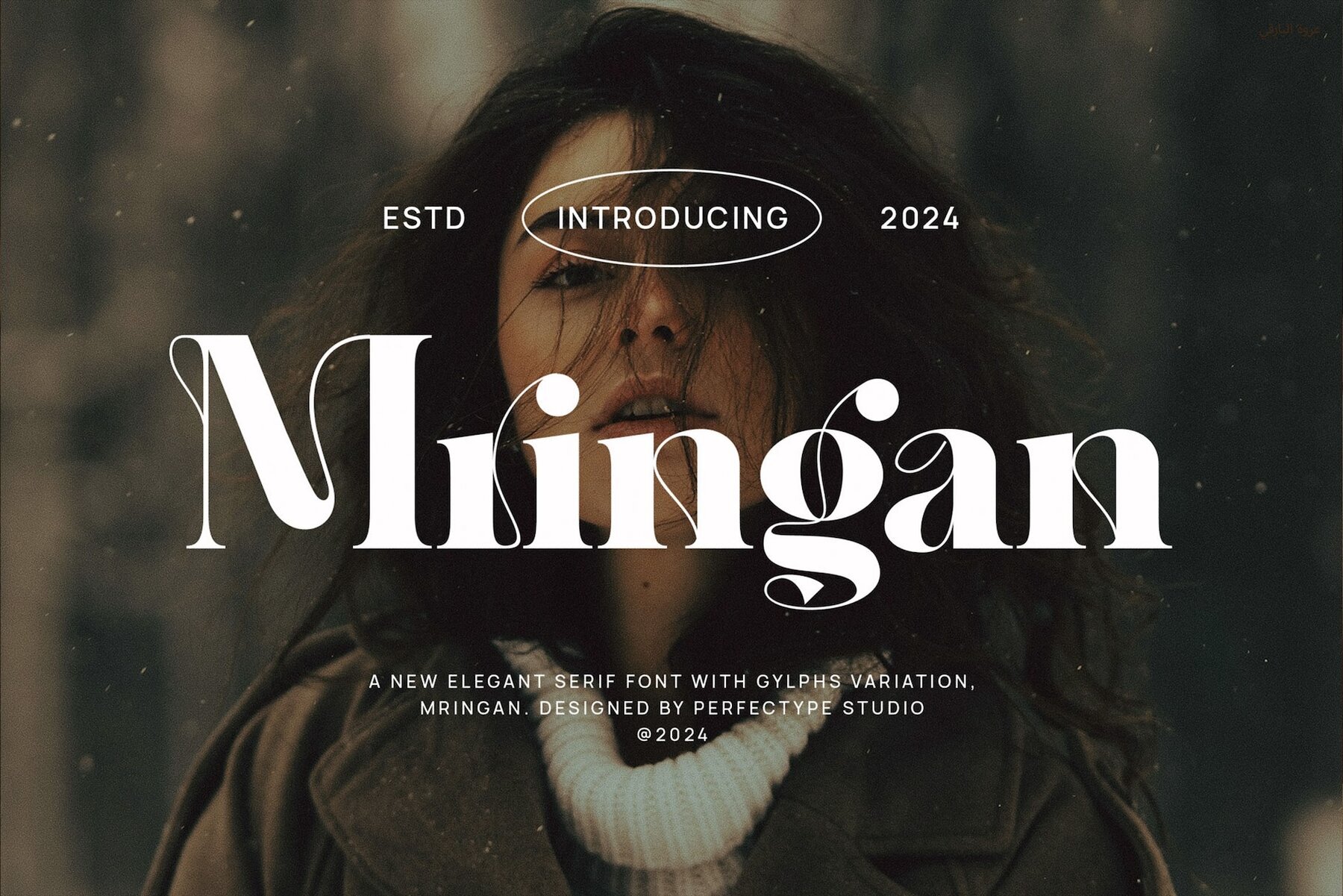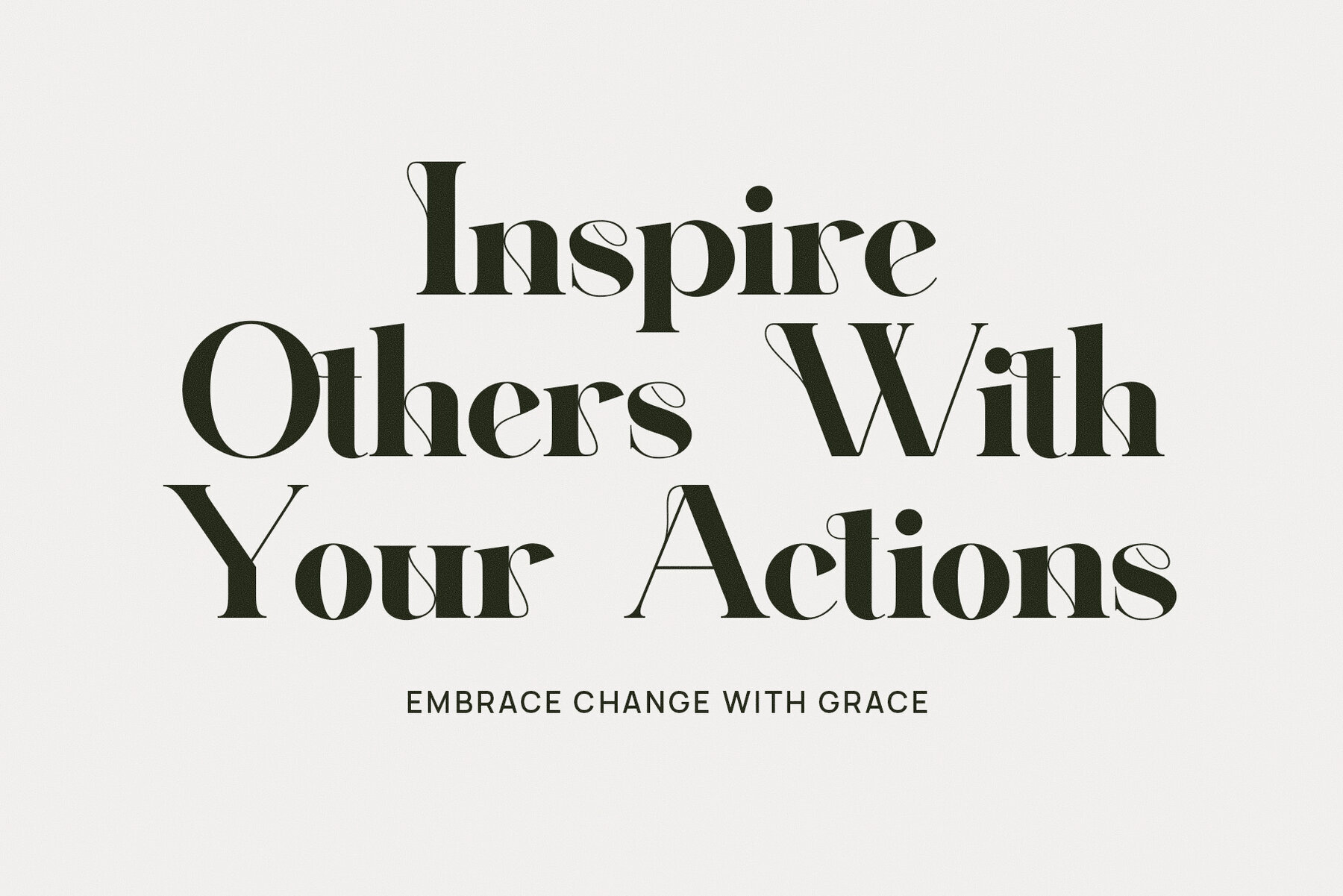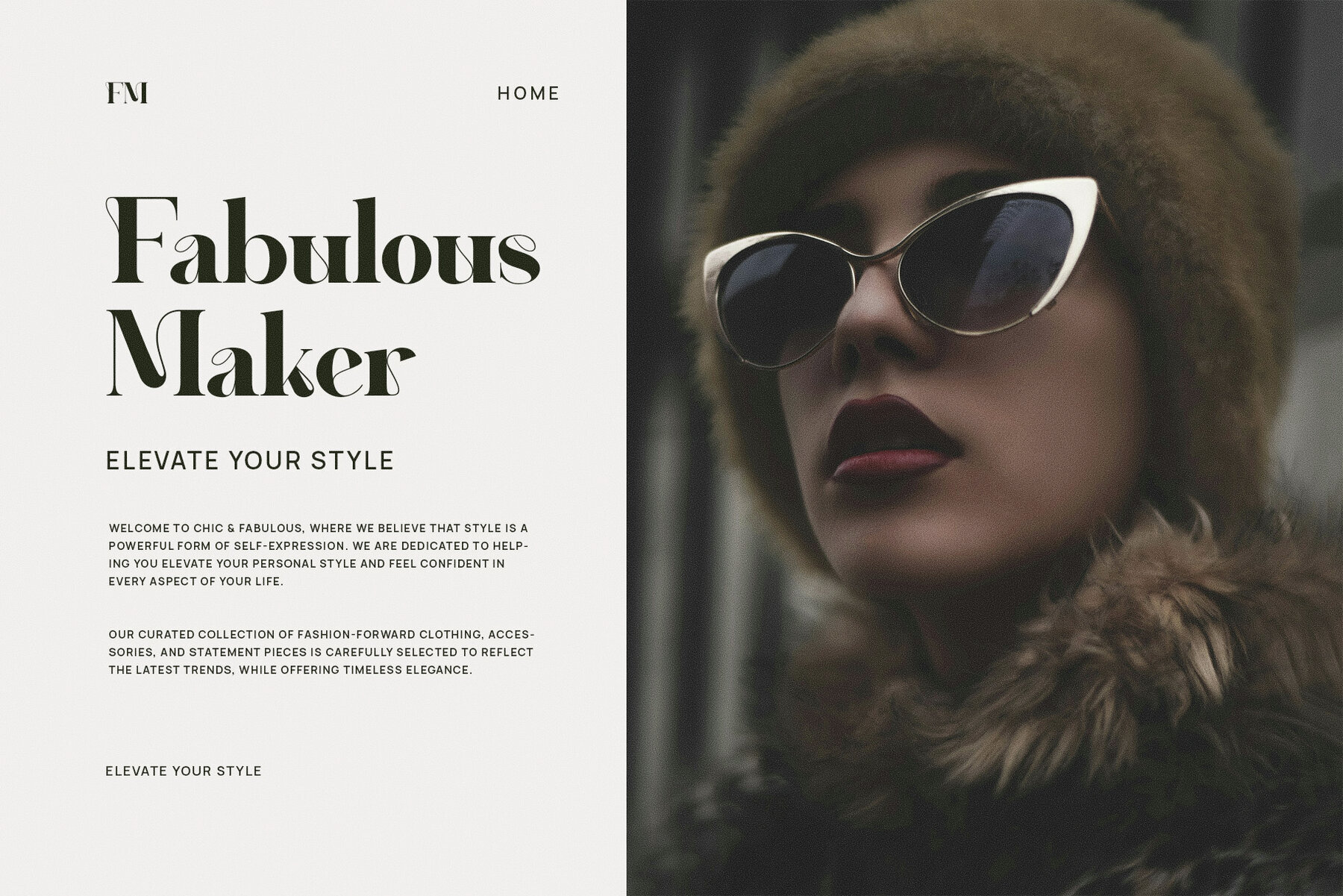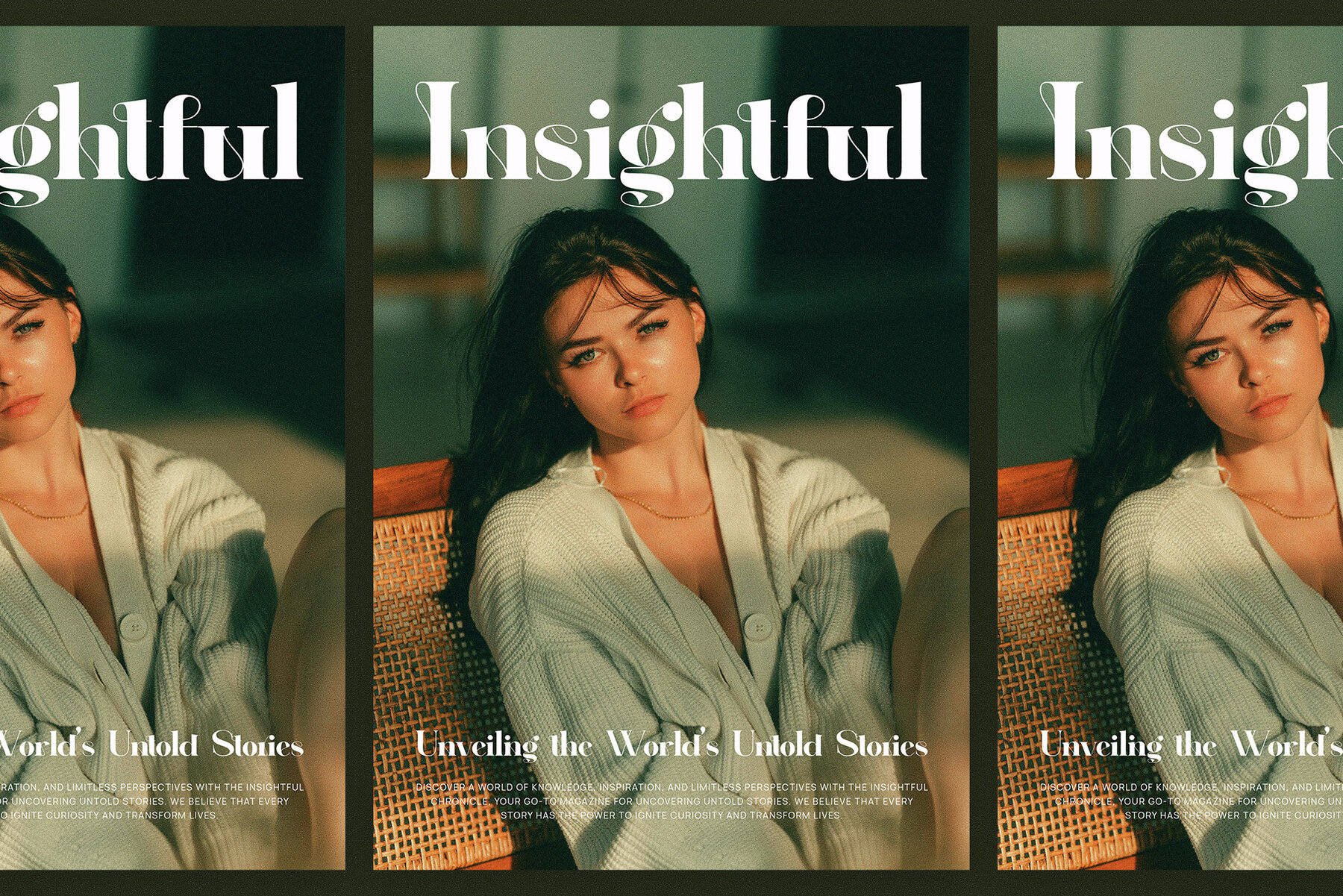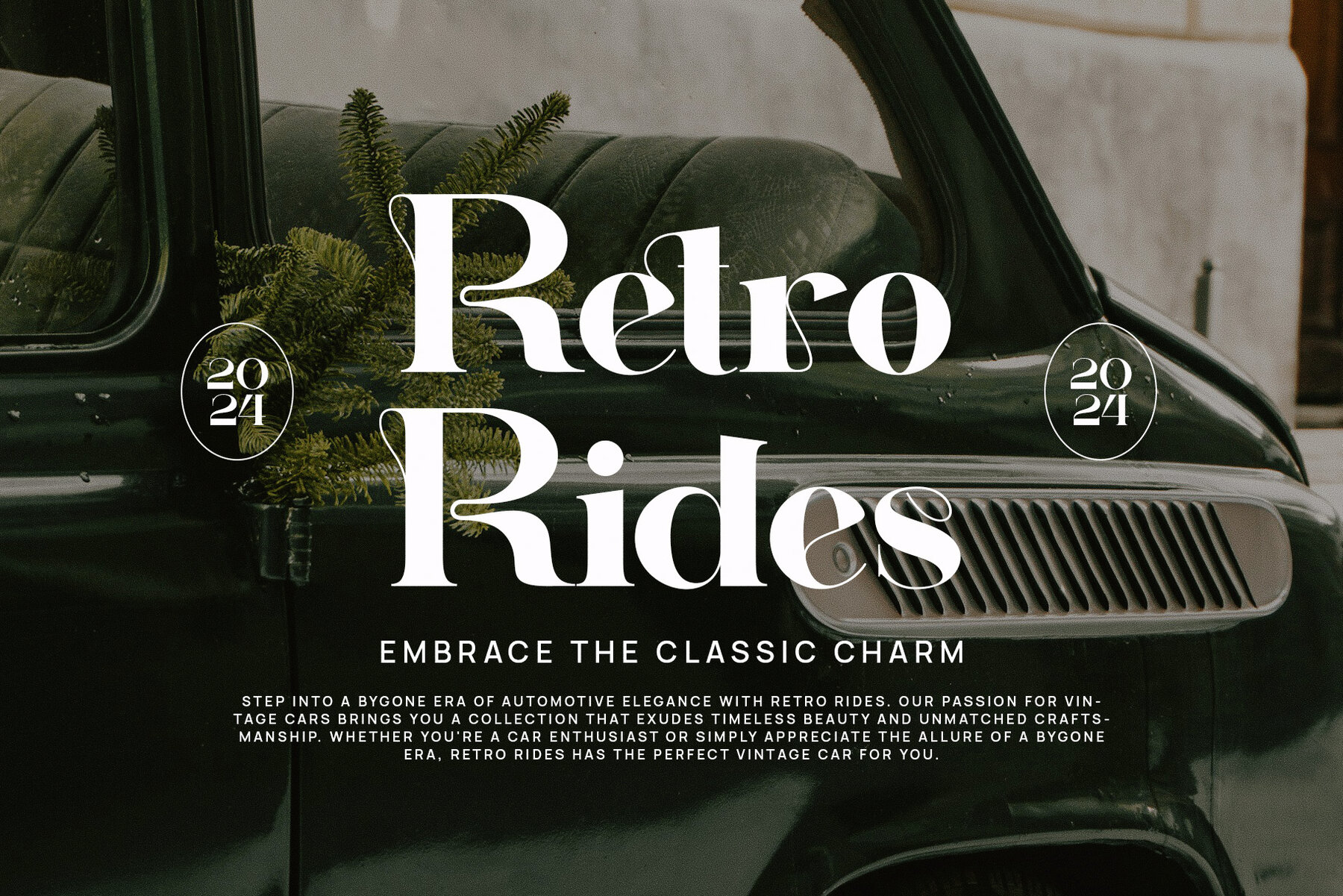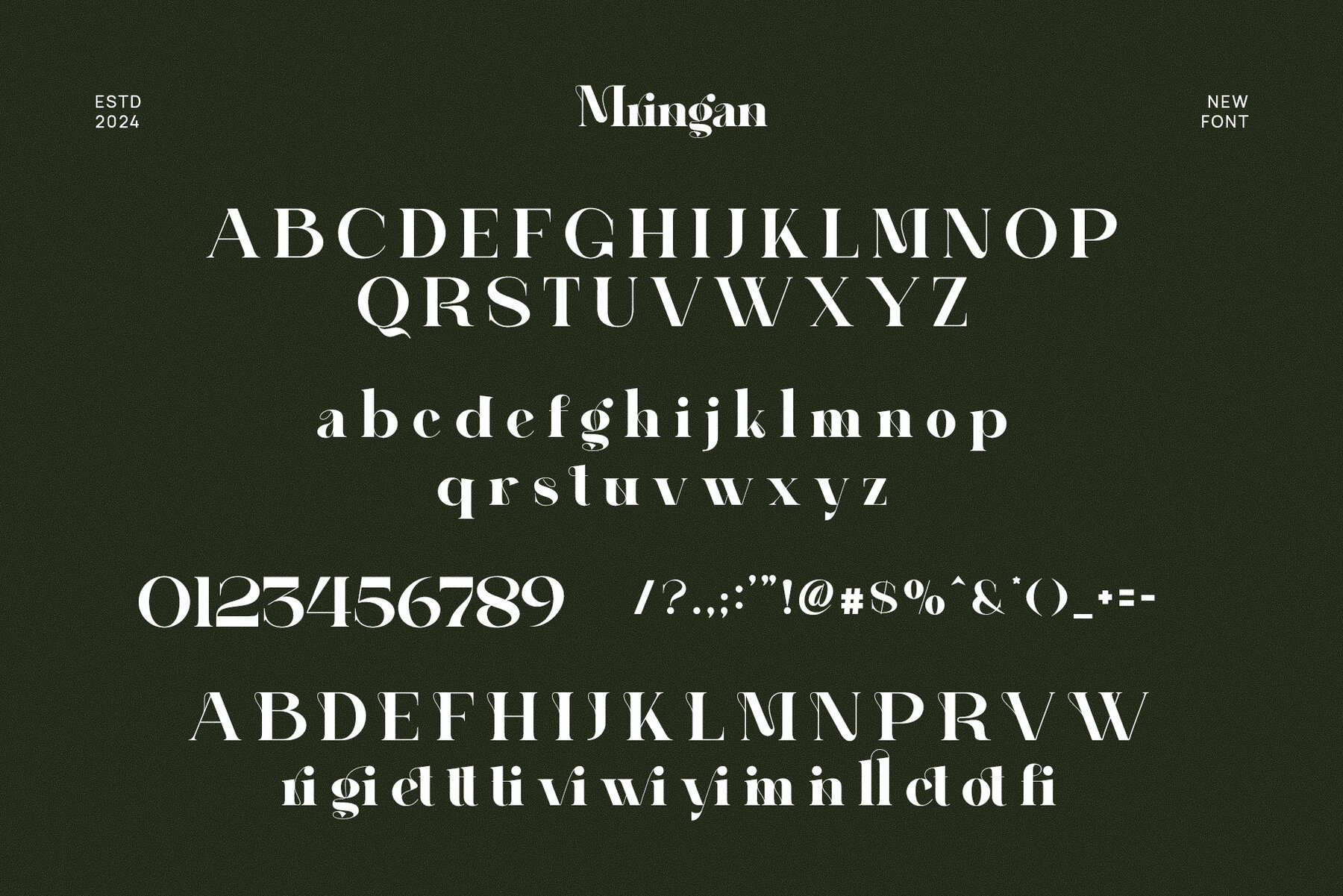
Mringan Font
Mringan
Mringan Elegant Serif Font is a sophisticated typeface that seamlessly combines modern elegance with timeless charm. Its distinctive, carefully crafted letterforms offer a unique visual appeal, making it an ideal choice for high-end branding, luxury logos, and refined editorial work. The graceful serifs and well-balanced proportions create an aesthetic fit for upscale industries including fashion, boutique branding, fine dining, and luxury products. Mringan’s elegance is further enhanced by its thoughtful ligatures and alternate characters, offering designers endless creative possibilities to craft custom, fluid typography that stands out.
This font is versatile enough for a range of applications, from product packaging and advertisements to invitations and corporate materials. Its readability is exceptional across both digital and print media, ensuring that your designs maintain a polished and refined appearance. Whether you are designing a premium logo, a chic website, or a stylish magazine layout, Mringan provides a perfect blend of contemporary style and classic refinement. With its beautiful shapes and smooth ligatures, Mringan imbues every project with sophistication, leaving a lasting impression without relying on superfluous detail.